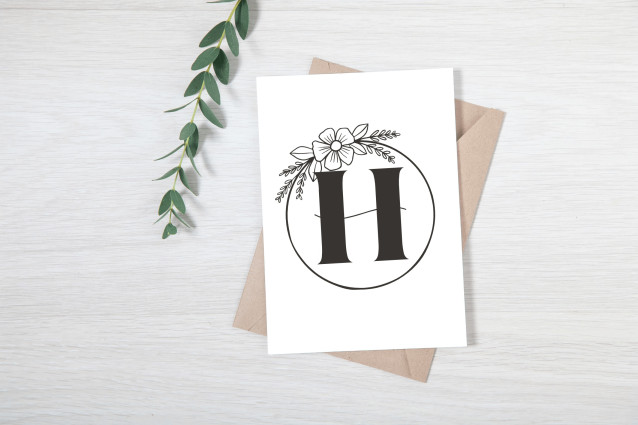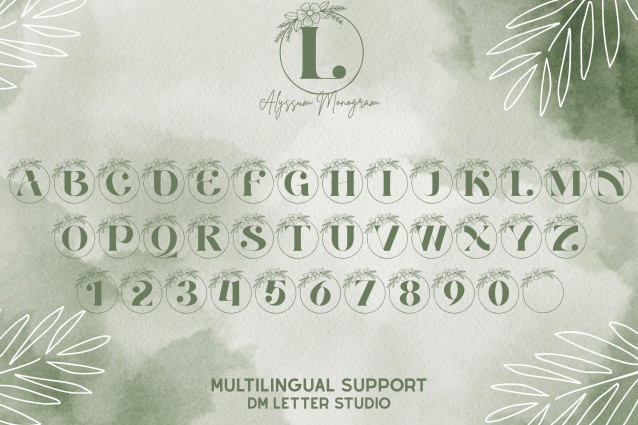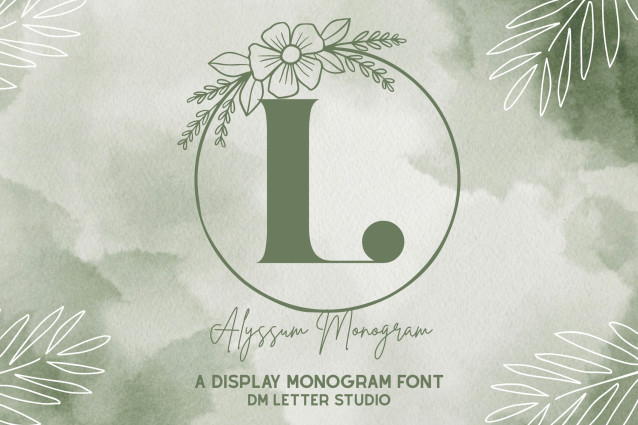
Alyssum Monogram Font
Alyssum Monogram Font is a refined and floral-inspired monogram font that blends elegance with nature’s delicate charm. Each letter is crafted with ornamental botanical accents, making it perfect for wedding invitations, stationery, branding, feminine logos, and seasonal crafts. It captures the timeless grace of blooming flowers while maintaining clarity and sophistication in every initial.